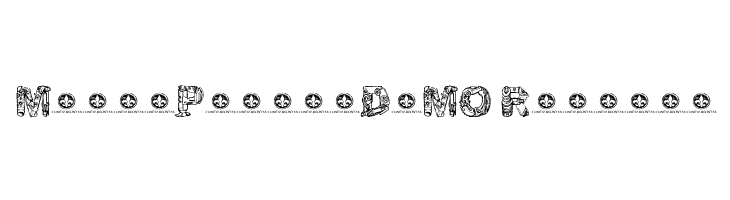
A bold, distressed font with a grunge texture for an edgy, rebellious look.
A rough, hand-drawn font with a vintage, distressed look.
A decorative and artistic font with intricate patterns and whimsical designs.
A bold, decorative font with intricate, hand-drawn patterns and a playful style.